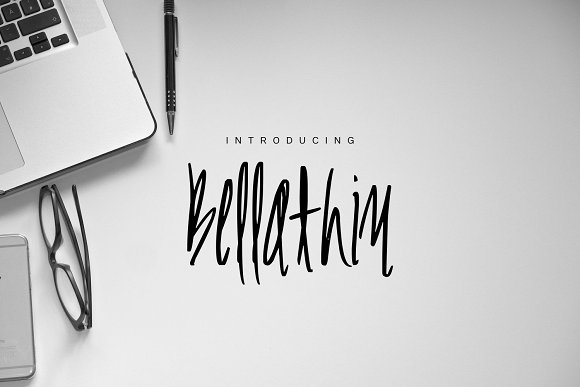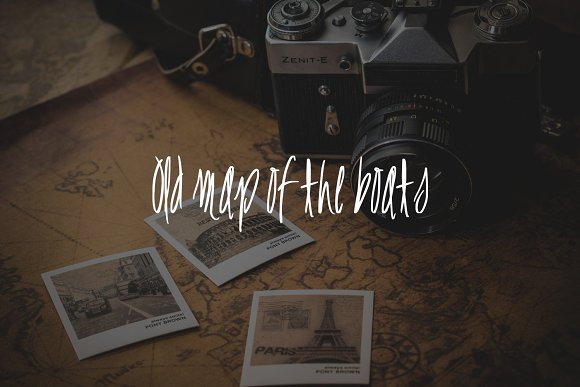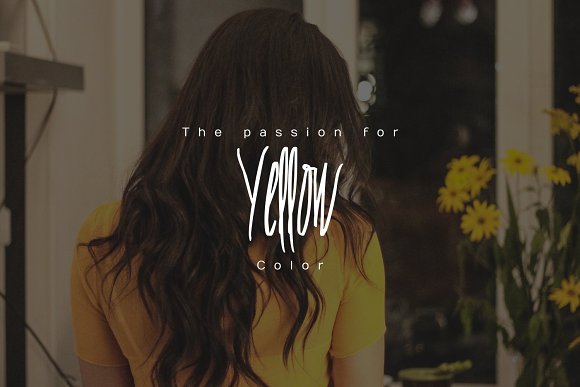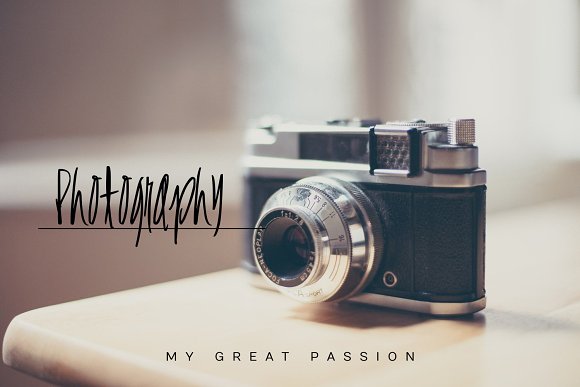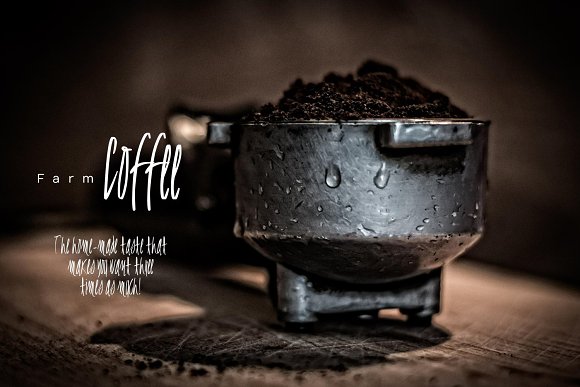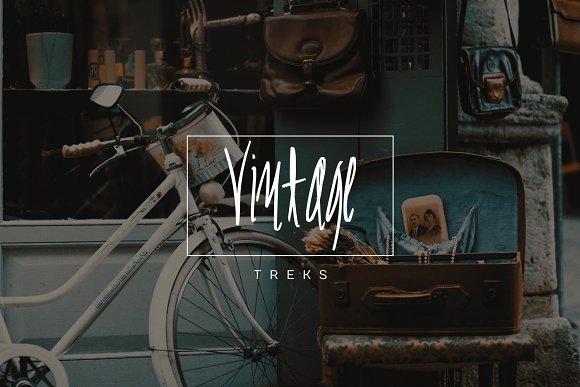
Bellathin Display Font
Bellathin – It is a thin and condensed font with a stylish vintage touch in writing. Perfectly fit for your wedding card design, some handcrafted products, vintage products…